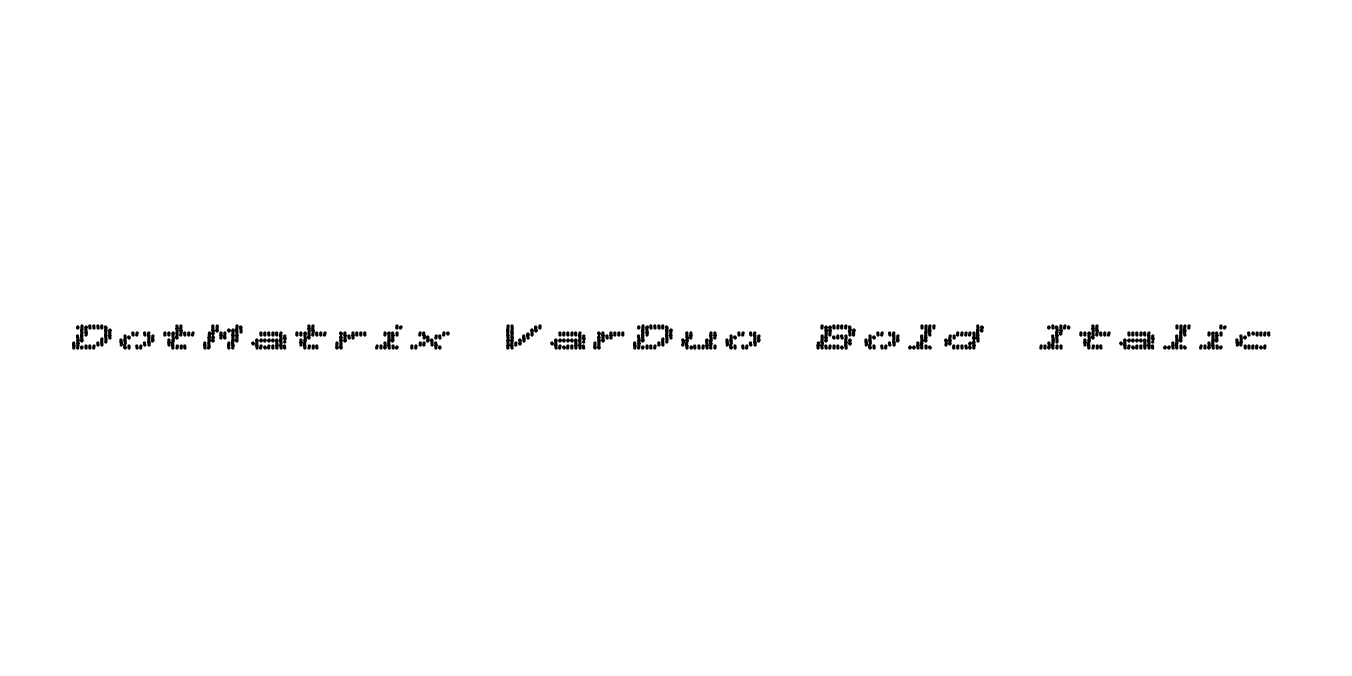
DotMatrix VarDuo Bold Italic
Designed by PixelType Foundry
| Font Name | DotMatrix VarDuo |
| Category | Pixel / Bitmap |
| Designer | PixelType Foundry |
| Similar Fonts | Dot Matrix, Fixedsys, LED Board, Courier Pixel |
DotMatrix VarDuo Bold Italic is a contemporary interpretation of the classic 9-pin and 24-pin printer aesthetics that dominated the early computing era. While traditional dot matrix fonts were static and limited by hardware constraints, the VarDuo series utilizes modern variable font technology to allow for fluid transitions between weights and slants. This specific Bold Italic weight provides a dynamic, high-energy feel that mimics the look of high-speed digital tickers and legacy industrial displays while maintaining modern legibility.
Historically, dot-based typography served as the backbone for early user interfaces and ticketing systems. The DotMatrix VarDuo Bold Italic honors this legacy by meticulously spacing every circular terminal to ensure a consistent grid-based appearance. It is engineered for high-impact display use, where the combination of its heavy weight and forward lean creates a sense of motion and technological urgency, making it a favorite for designers working within the cyberpunk, vaporwave, and retro-tech genres.
DotMatrix VarDuo Bold Italic Best Uses
Ideal for simulating LED scoreboards, transit tickers, and airport arrival screens.
Perfect for retro-style HUDs, menu interfaces, and terminal console text.
Excellent for poster headers, tech-themed branding, and apparel design needing a digital edge.
Great for decorative headers in tech blogs or digital art portfolios.